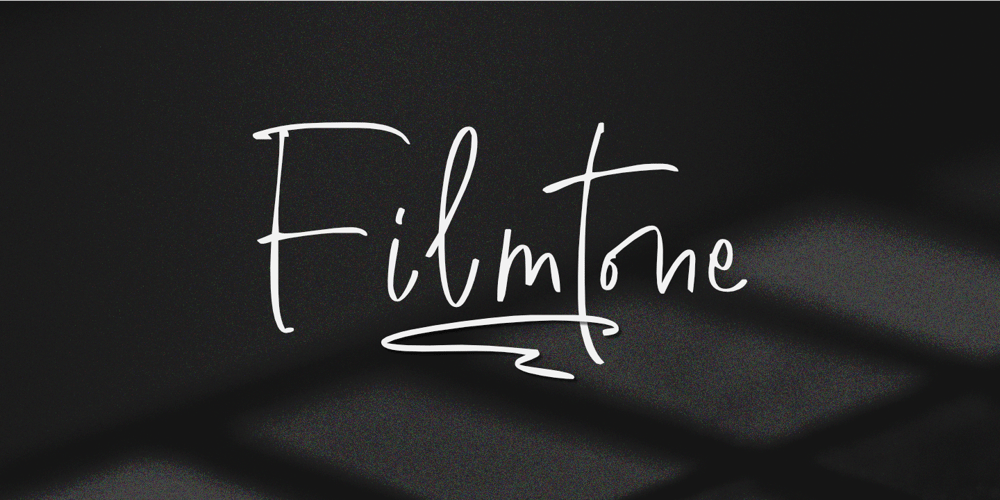
Filmtone Font Family was designed by Nurul Hidayani and published by Olivetype. Filmtone contains 1 styles and family package options. Create beautiful work with Filmtone, the perfect typeface for adding a touch of personality to your designs. With its casual style, Filmtone is perfect for headlines, invitations, posters, and more.So what’s included : Basic Latin Uppercase and Lowercase Numbers, symbols, and punctuations Multilingual Support. Simple Installations works on PC & Mac Thank You.